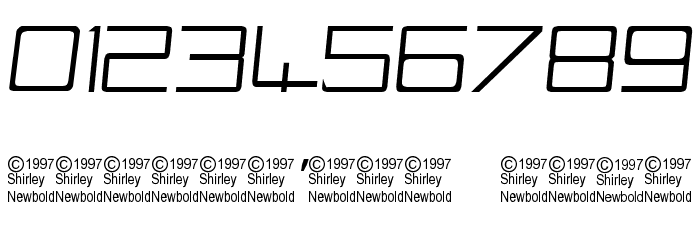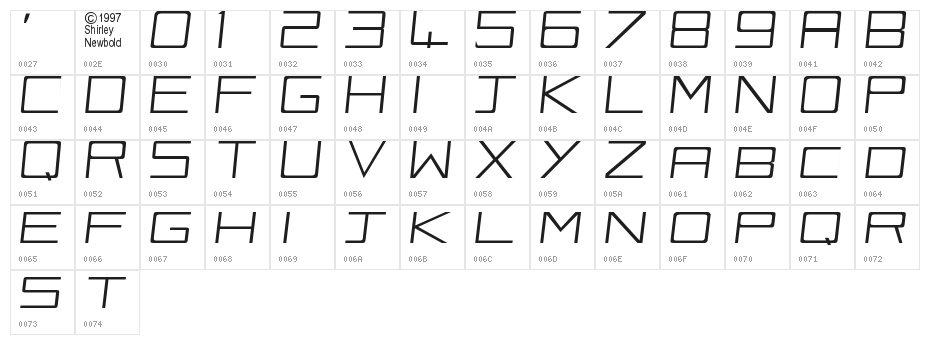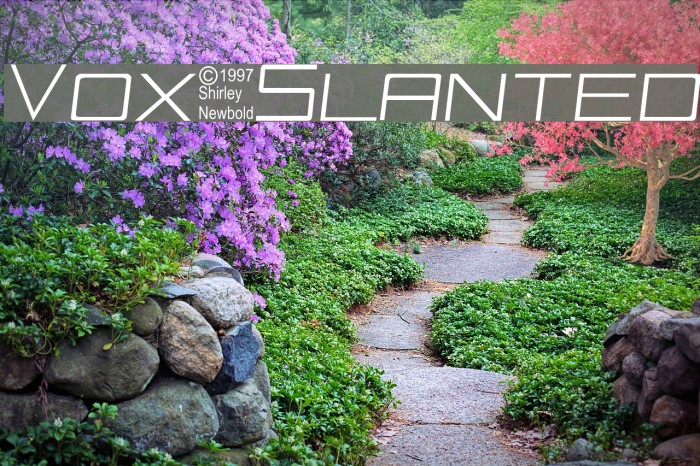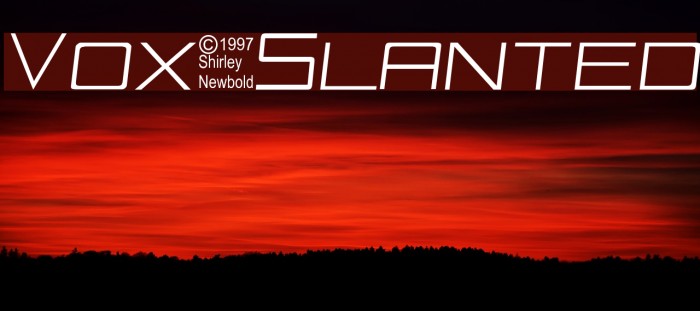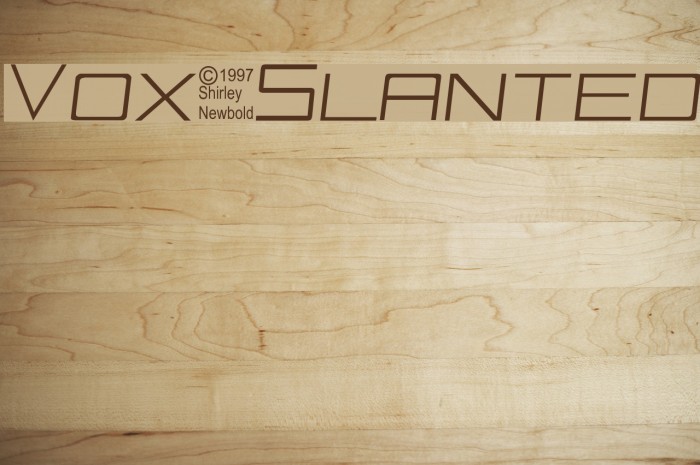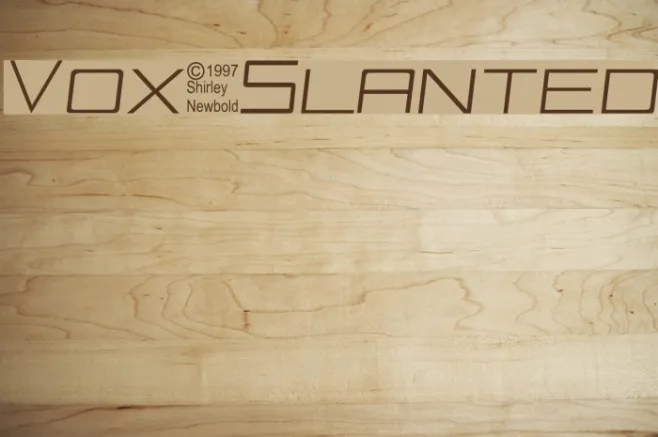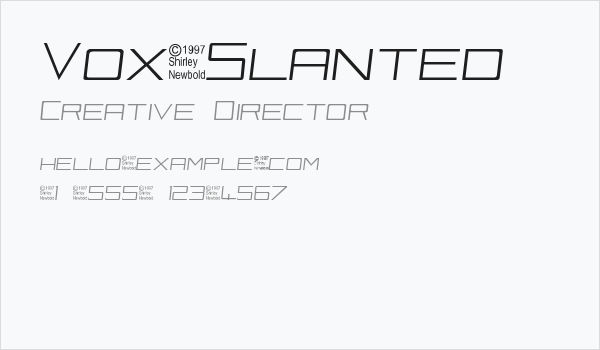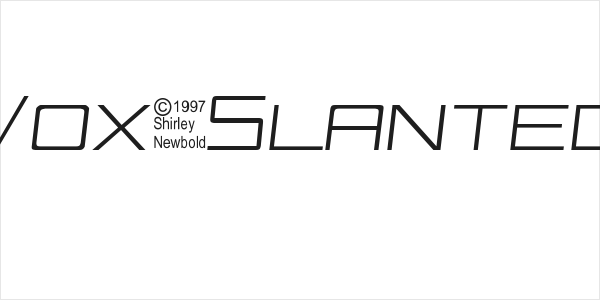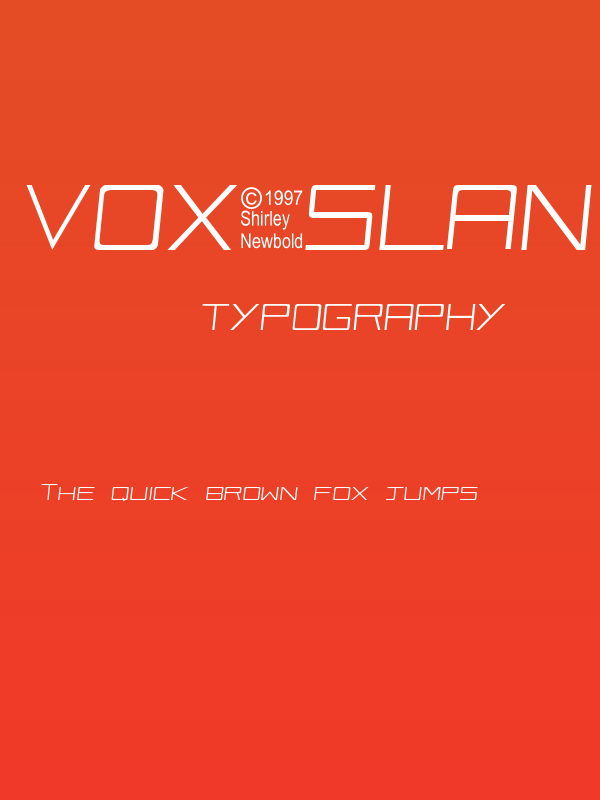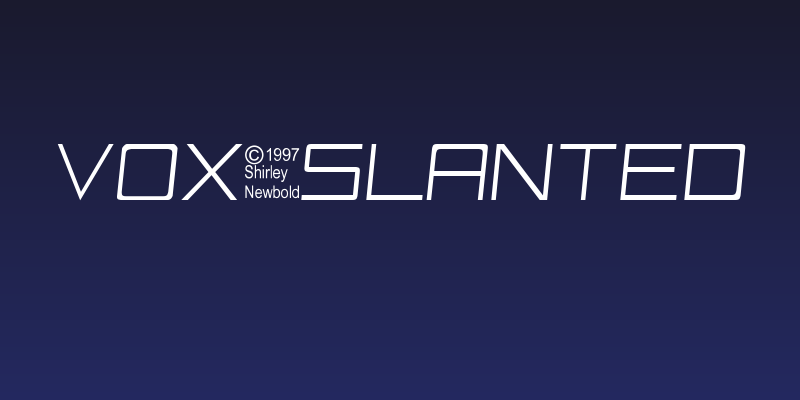
Vox-Slanted Font
Vox-Slanted Description
This font features a sleek, modern design with a slanted orientation, giving it a dynamic and forward-moving appearance. The characters are constructed with clean, straight lines and sharp angles, creating a futuristic and technical aesthetic. The uppercase and lowercase letters maintain a consistent style, with a uniform height and width that ensures readability. The numbers follow the same design principles, offering a cohesive look across all characters. The font's minimalistic approach makes it suitable for contemporary projects that require a touch of sophistication and innovation.
| Use Case | Logos, Headlines, Digital Interfaces |
| Proposed Projects | Ideal for technology branding, modern advertising, digital interfaces, and innovative product packaging. |